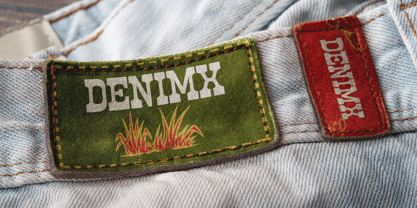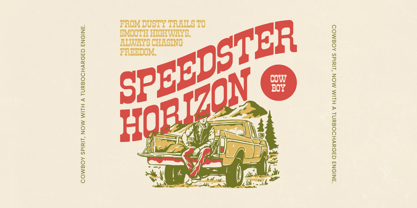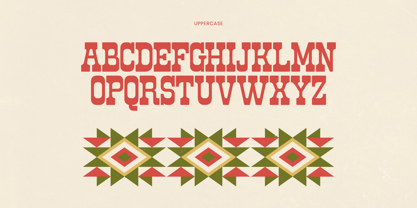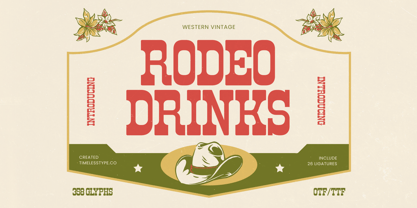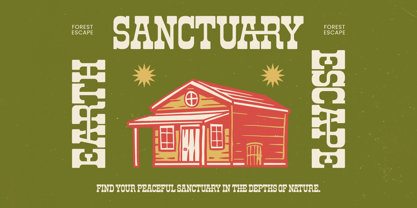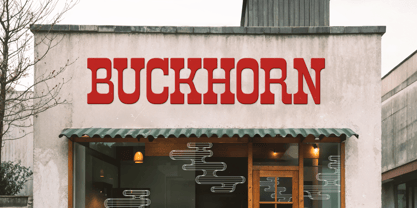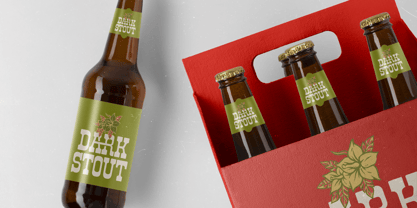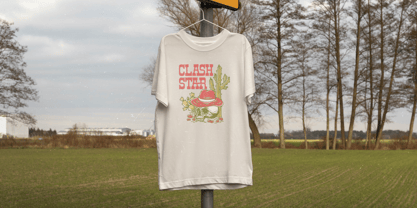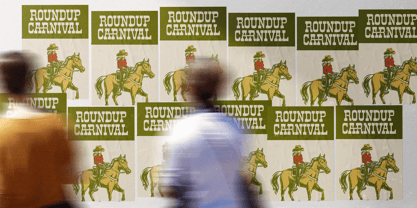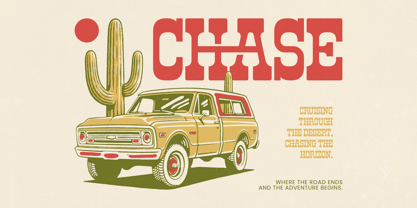
Rodeo Drinks
The Rodeo Drinks Font Family was designed by Heru Utama Putra and published by Timelesstype Studio. Rodeo Drinks contains 2 styles and family package options. More about this family
Rodeo Drinks is a bold western vintage display font inspired by classic rodeo signage, cowboy culture, and retro American typography. The letterforms feature strong slab-style structures with rounded vintage edges, giving the typeface a powerful and authentic western character. This font is designed to create eye-catching headlines with a nostalgic western atmosphere. Its sturdy shapes and balanced proportions make it perfect for large display typography where impact and personality are essential. Rodeo Drinks also includes a collection of ligatures that add flexibility to typography compositions, helping designers craft unique lettering styles with a classic rodeo aesthetic. The font works exceptionally well for vintage branding, western themed designs, and bold retro typography.